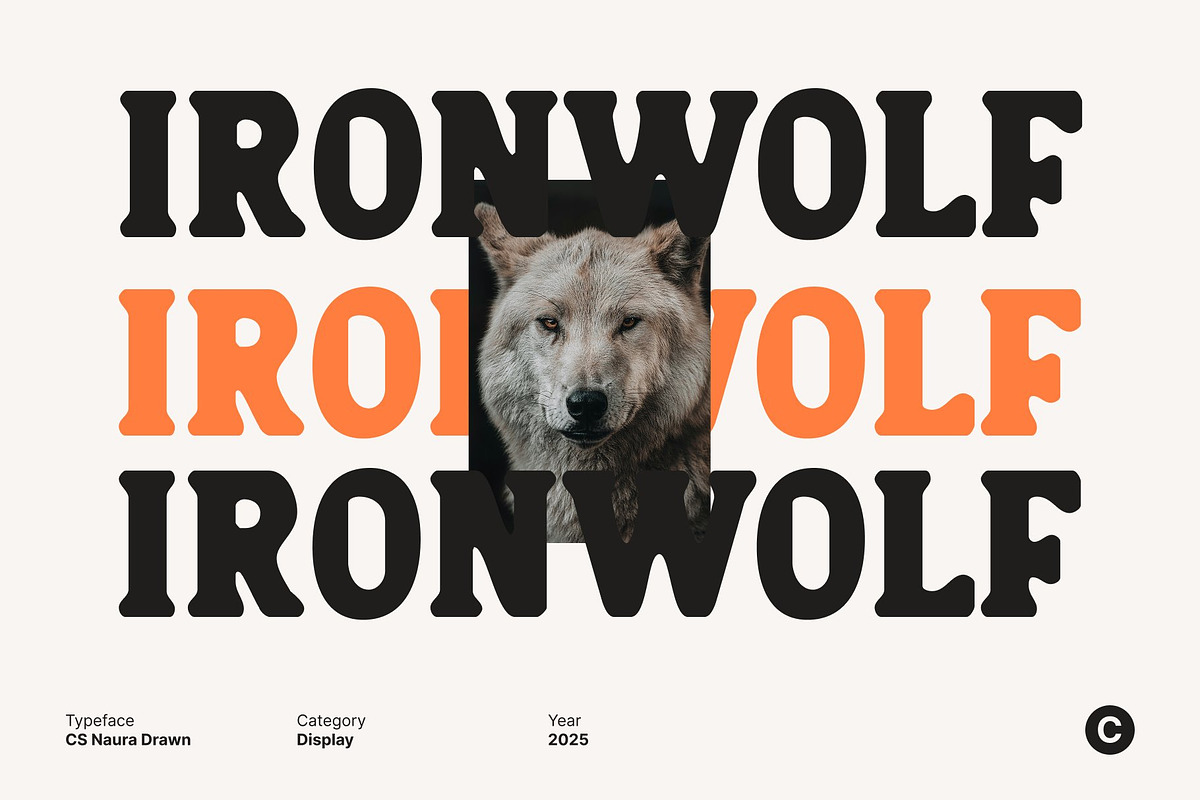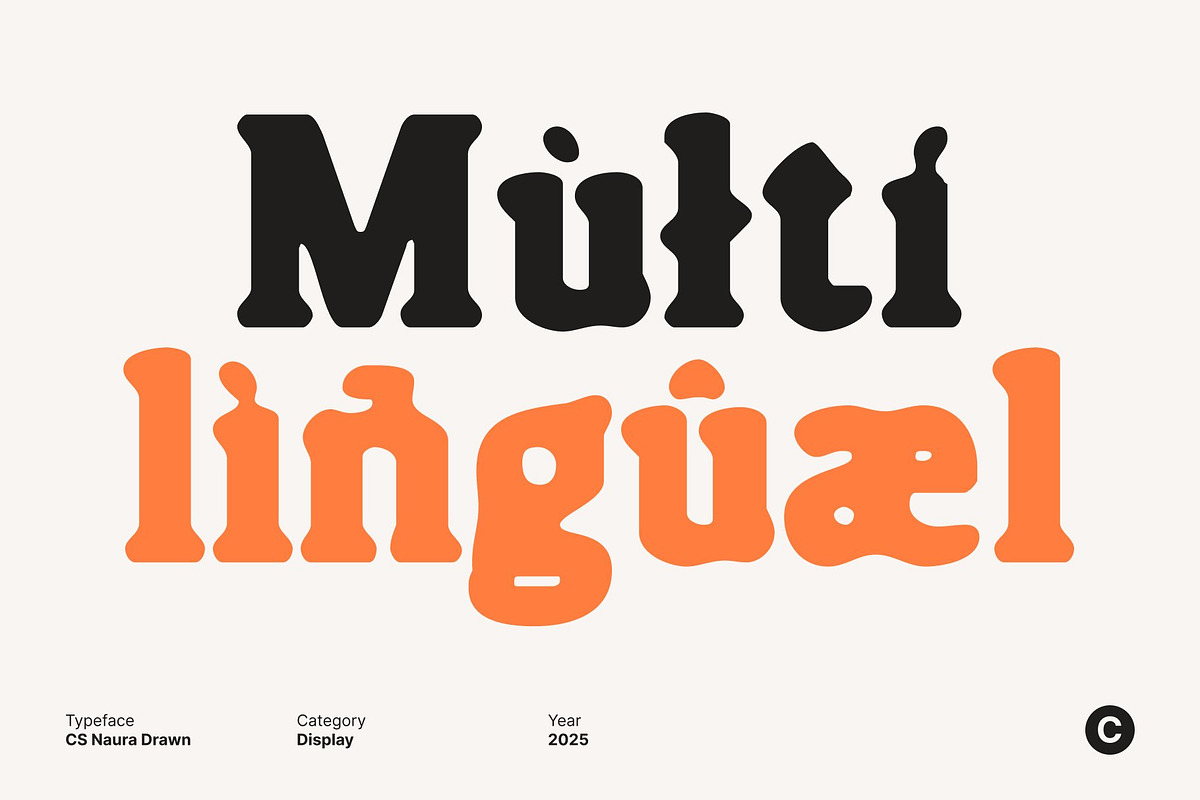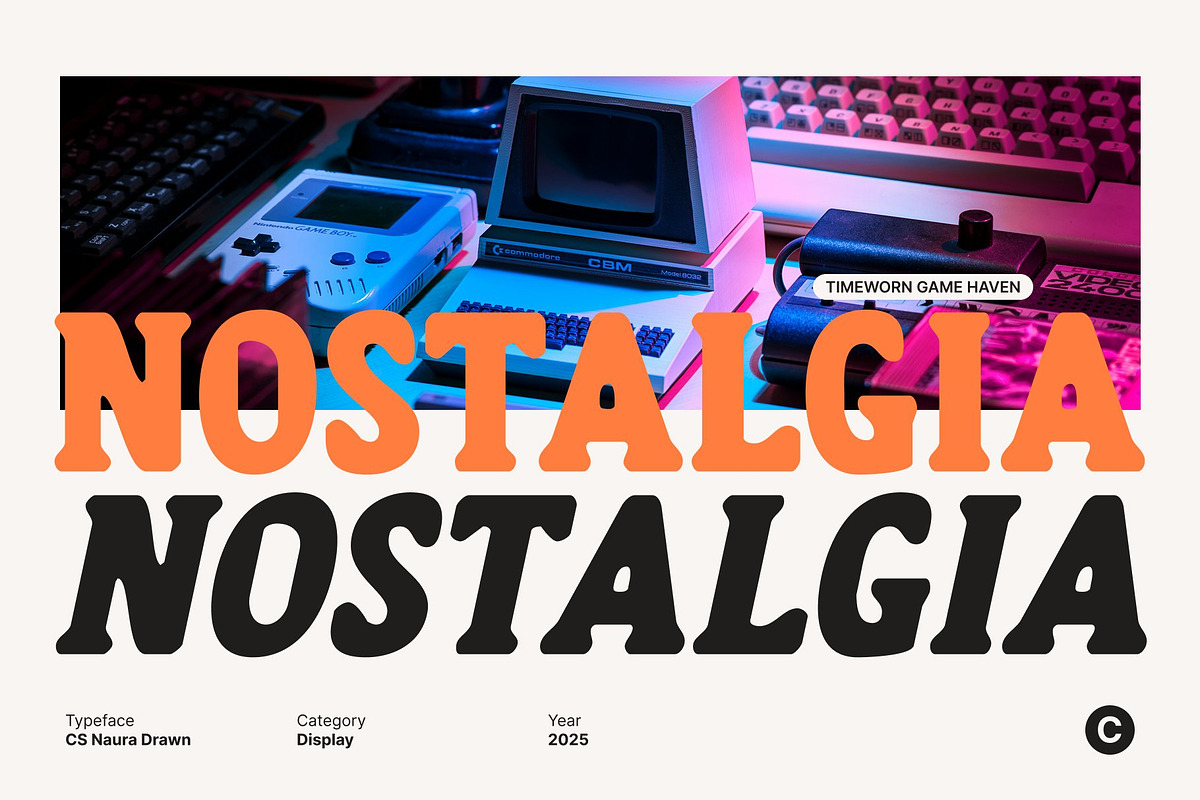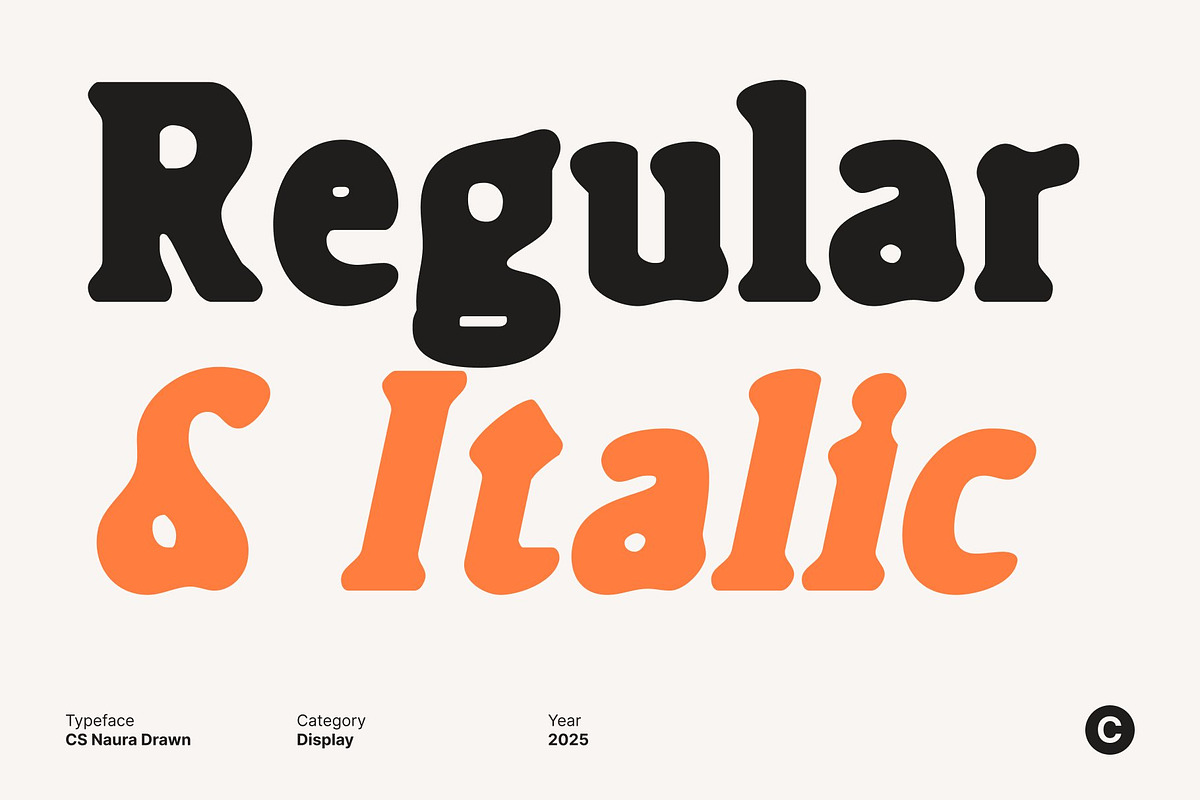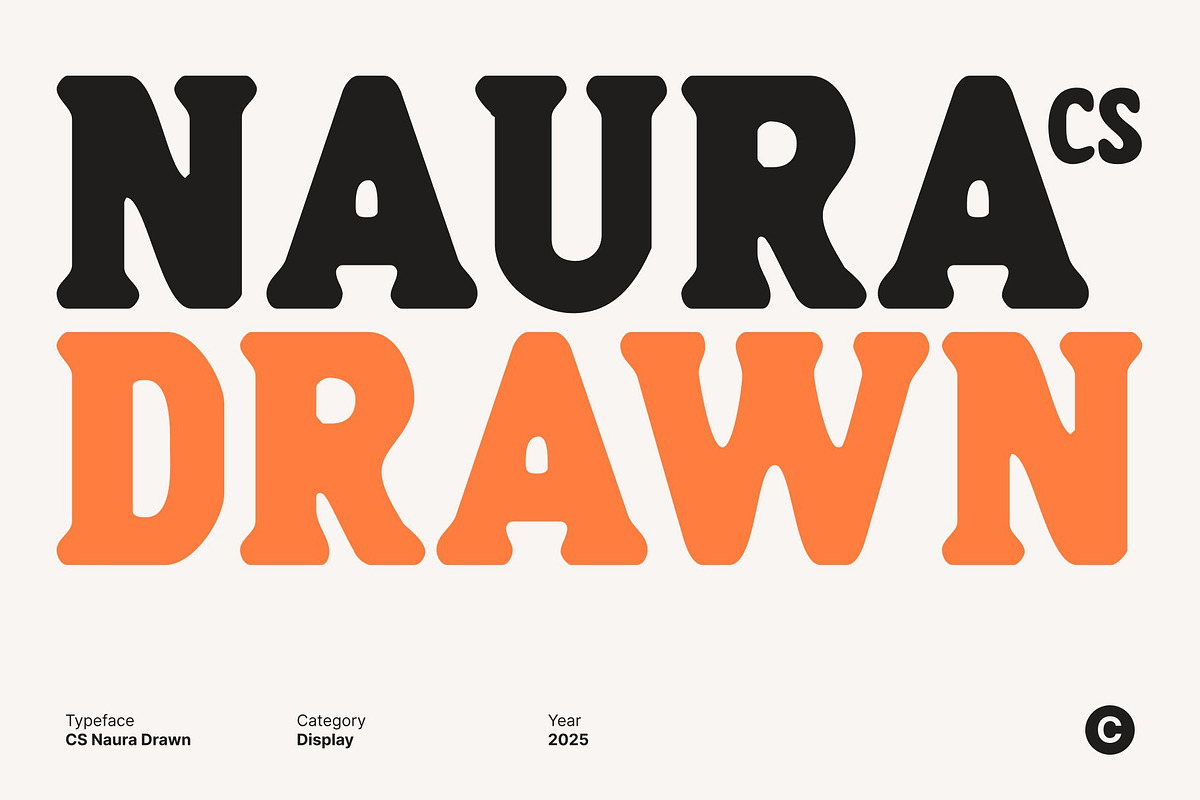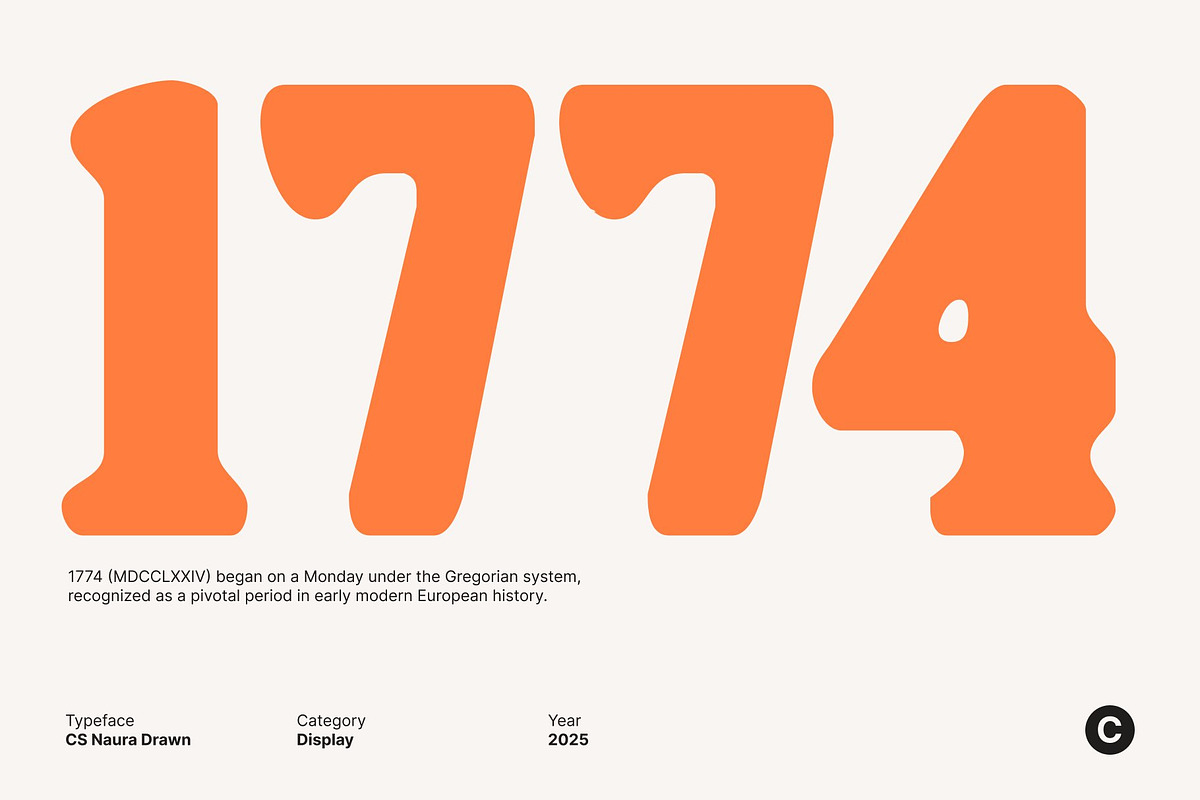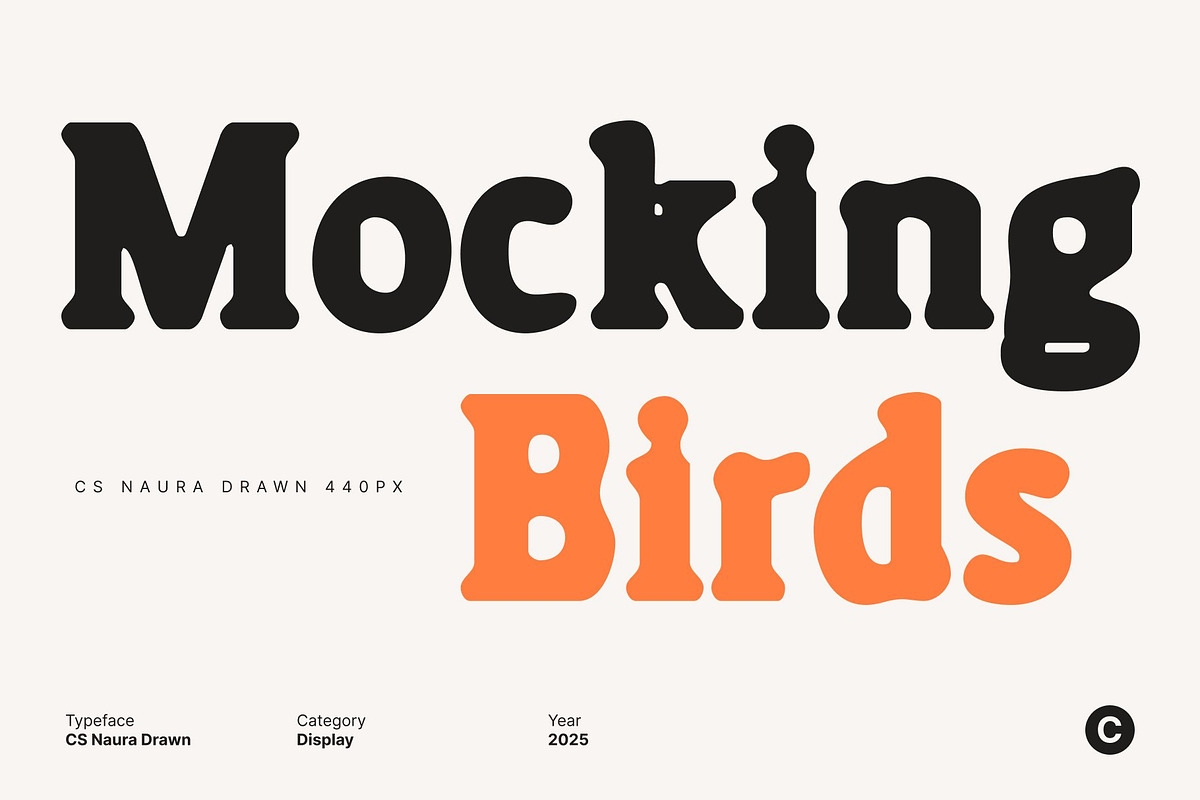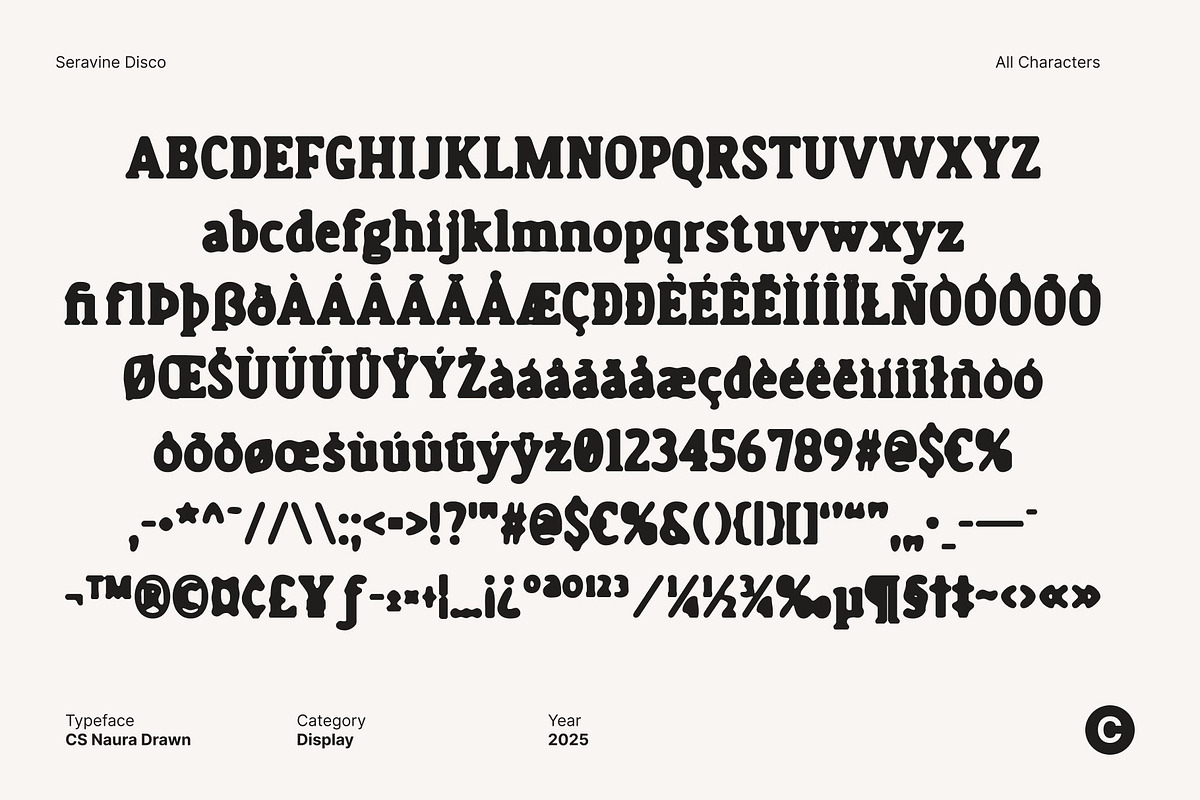
CS Naura Drawn
CS Naura Drawn – Bold Serif Font with Strong Hand-Drawn Presence
Powerful Serif Letterforms for Maximum Impact This is a bold serif font designed to command attention. Its strong, confident shapes and substantial weight create a striking visual presence, making it ideal for designs that require authority, clarity, and sophistication. Each character projects strength while maintaining elegant proportions.
Hand-Drawn Texture for Expressive Character The drawn effect adds subtle imperfections and handcrafted details, giving a dynamic and artistic personality. This texture enhances the font’s visual appeal, transforming its classic serif structure into something lively, expressive, and full of character.
Ideal for Headlines, Posters, and Impactful Branding This font excels in high-visibility applications where bold statements are needed. Perfect for editorial headlines, promotional posters, branding, packaging, and logos, the font ensures your message stands out with confidence and style.
A Bold, Expressive Typeface for Modern Design This font balances classic serif elegance with contemporary hand-drawn artistry. Its bold weight, combined with expressive texture, makes it a versatile and memorable choice for designers seeking a font that conveys strength, sophistication, and creative flair.
- CS Naura Drawn Regular
- CS Naura Drawn Italic